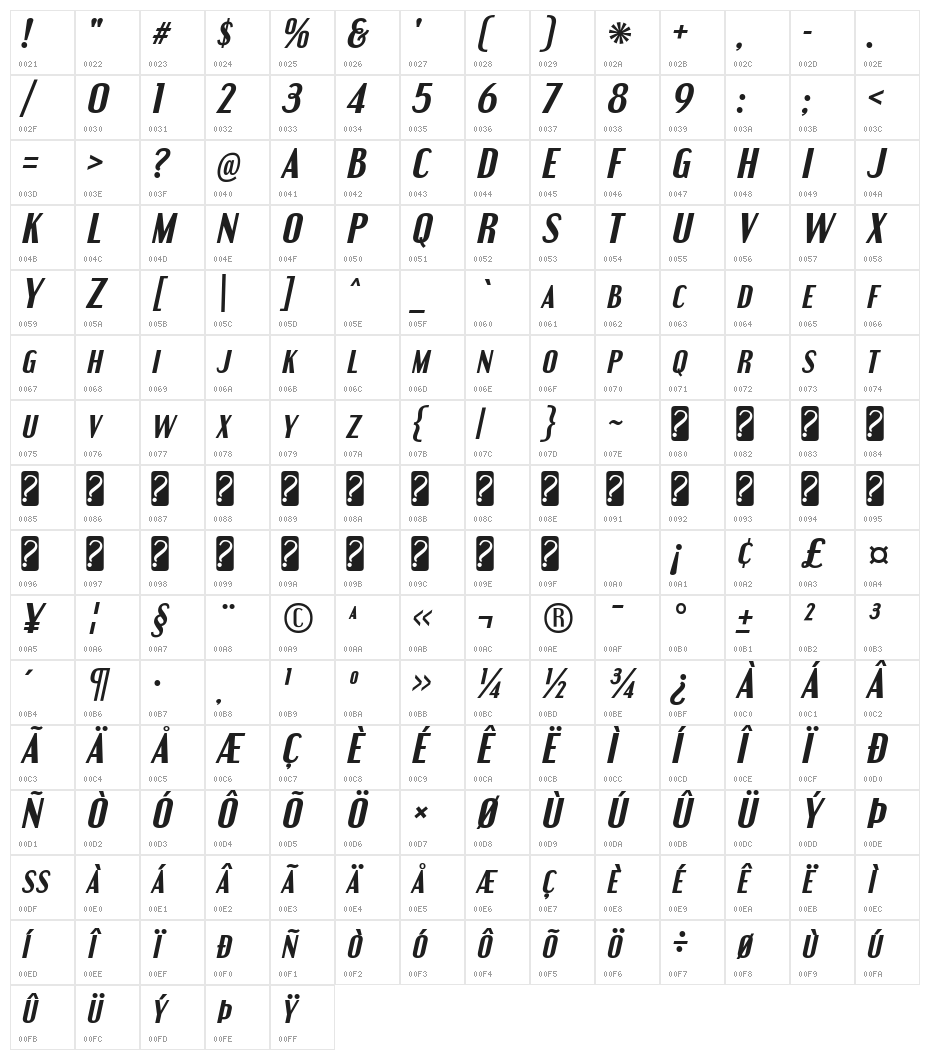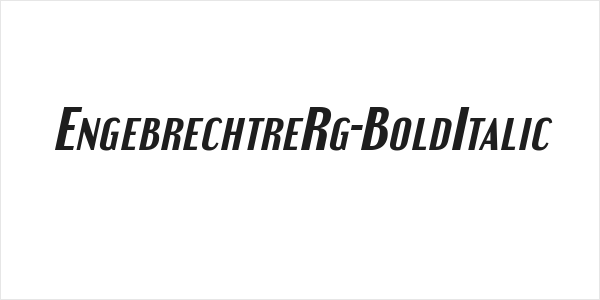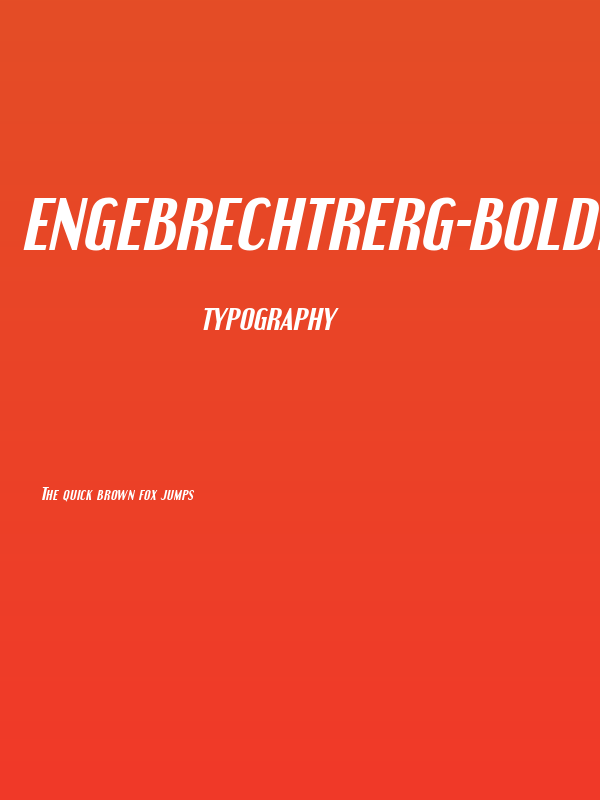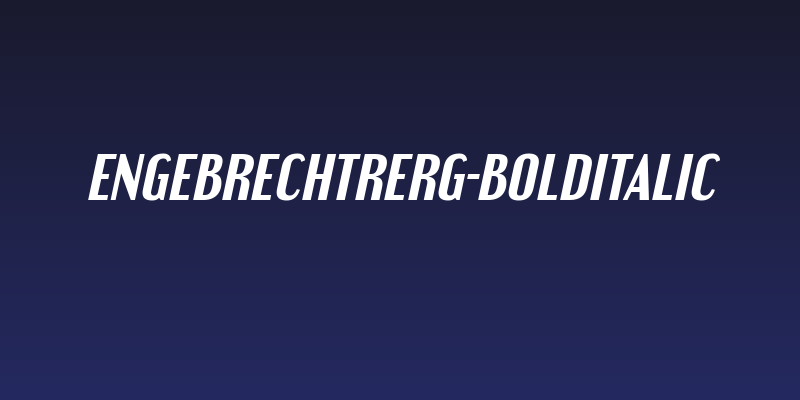
EngebrechtreRg-BoldItalic Font
EngebrechtreRg-BoldItalic Description
This font exudes a bold and dynamic presence with its italicized, slanted characters. The strokes are thick, providing a strong visual impact, while the italic style adds a sense of motion and energy. The characters are well-defined, with a slight curvature that enhances readability and aesthetic appeal. The numbers and special characters maintain the same boldness and slant, ensuring consistency across all elements. This font is perfect for creating eye-catching headlines or titles that demand attention.
| Proposed Projects | Ideal for branding, advertising campaigns, poster designs, and any project requiring a bold, impactful typeface. |